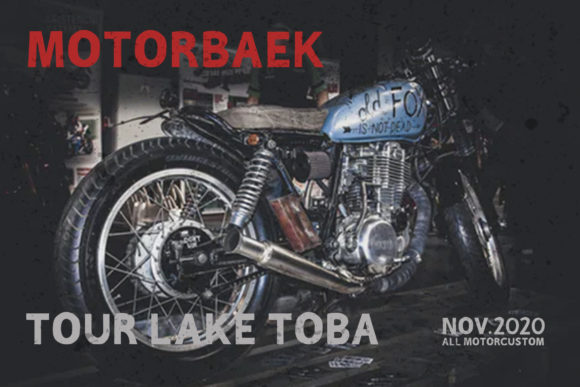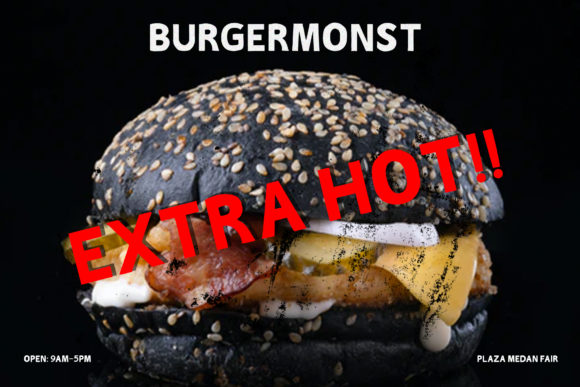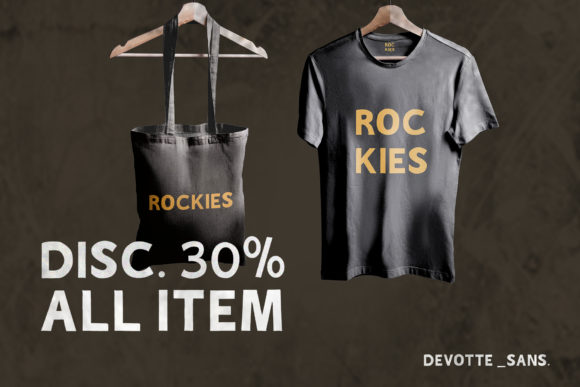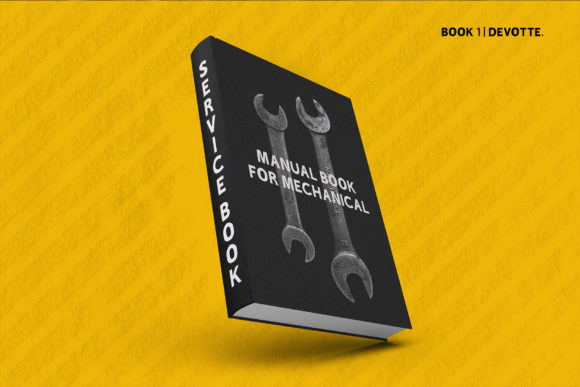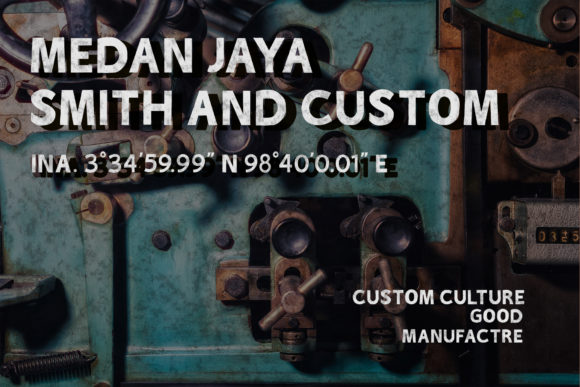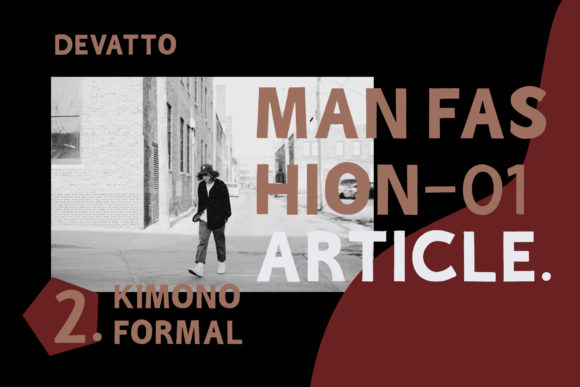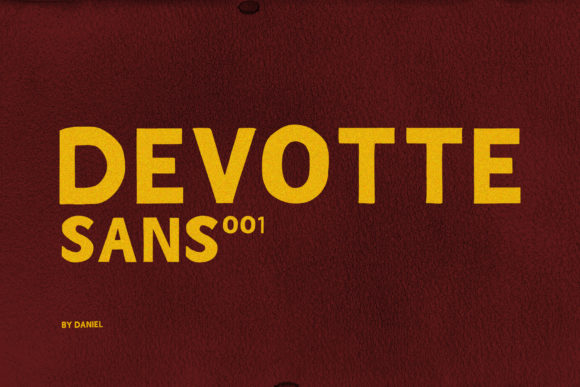
Introducing Devotte Font: The Ultimate Display Font for Your Creative Projects
Are you tired of using the same old fonts for your designs? Look no further! Devotte Font is here to revolutionize your creative projects with its bold and chunky lettered display font. Simple, yet natural, Devotte is the perfect choice for both formal and informal projects. In this article, we’ll dive into the features and benefits of Devotte Font, and explore how it can elevate your designs to the next level.
What is Devotte Font?
Devotte Font is a bold and chunky lettered display font that is designed to make a statement. Its simple and natural design makes it ideal for a wide range of projects, from branding and product packaging to invitations, quotes, t-shirts, labels, posters, and logos. With Devotte Font, you can add a touch of personality and style to your designs, setting them apart from the crowd.
Key Features of Devotte Font
- Bold and Chunky Design: Devotte Font features a bold and chunky design that is sure to grab attention. Its thick lines and rounded edges give it a friendly and approachable feel.
- Simple and Natural: Despite its bold design, Devotte Font has a simple and natural look that makes it easy to read and understand.
- Versatile: Devotte Font is suitable for a wide range of projects, from formal and informal designs.
Benefits of Using Devotte Font
- Adds Personality to Your Designs: Devotte Font adds a touch of personality and style to your designs, making them more engaging and memorable.
- Improves Readability: Despite its bold design, Devotte Font is easy to read and understand, making it perfect for designs that require a clear message.
- Increases Versatility: Devotte Font can be used for a wide range of projects, from formal and informal designs, making it a great addition to your font library.
- Enhances Branding: Devotte Font can help you create a consistent brand image, making it perfect for branding and marketing materials.
- Pair it with Other Fonts: Devotte Font pairs well with other fonts, making it easy to create a unique and stylish design.
- Experiment with Colors: Devotte Font looks great in a variety of colors, so don’t be afraid to experiment and find the perfect color scheme for your design.
- Use it for Headings and Titles: Devotte Font is perfect for headings and titles, making it a great choice for designs that require a bold and eye-catching font.
In conclusion, Devotte Font is a bold and chunky lettered display font that is perfect for designers and crafters looking to add a touch of personality and style to their designs. With its simple and natural design, Devotte Font is suitable for a wide range of projects, from formal and informal designs. Whether you’re creating branding materials, product packaging, invitations, quotes, t-shirts, labels, posters, or logos, Devotte Font is the perfect choice. So why wait? Download Devotte Font today and take your designs to the next level!